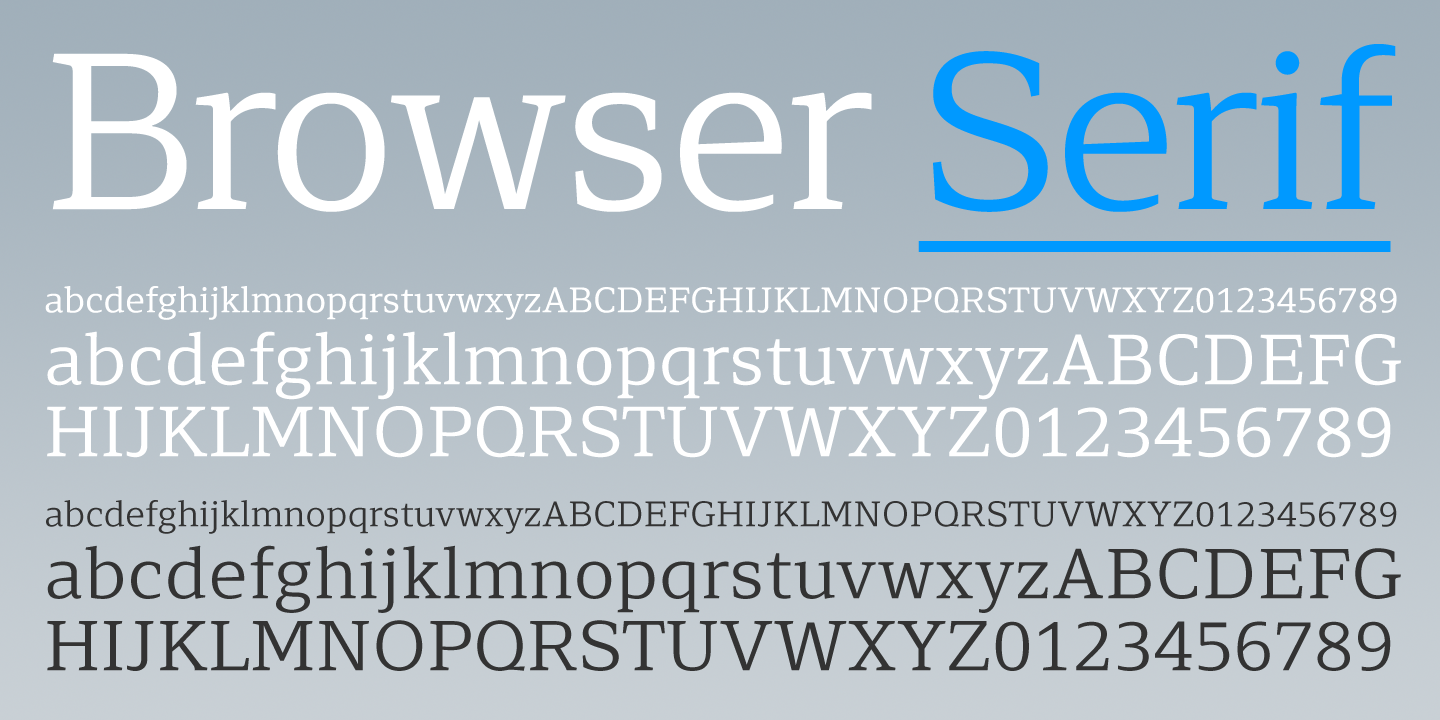
Browser Serif Font is perfect for editorial design, book covers, magazine layouts, newspaper headlines, academic publications, legal documents, corporate branding, luxury product packaging, wedding invitations, and sophisticated web typography projects.
What makes Browser Serif Font exciting is its perfect balance between classical elegance and modern readability. This typeface combines traditional serif characteristics with contemporary design elements, making it incredibly versatile for both print and digital applications. The font's refined letterforms and excellent legibility at various sizes make it a designer's dream for creating professional, authoritative, and visually appealing content.
Browser Serif Font family includes multiple weights and styles: Regular, Bold, Italic, Bold Italic, Light, Medium, and Black variants. Each weight maintains the font's distinctive character while offering designers flexibility for creating hierarchical typography systems and comprehensive brand identities.
Professional designers and creative agencies consistently choose Browser Serif Font Free Download for projects requiring sophistication and readability. The font's timeless appeal and technical excellence make it suitable for everything from corporate communications to editorial design. Whether you're working on digital interfaces, print materials, or branding projects, this serif font delivers exceptional results that enhance your design's overall impact and professional appearance.